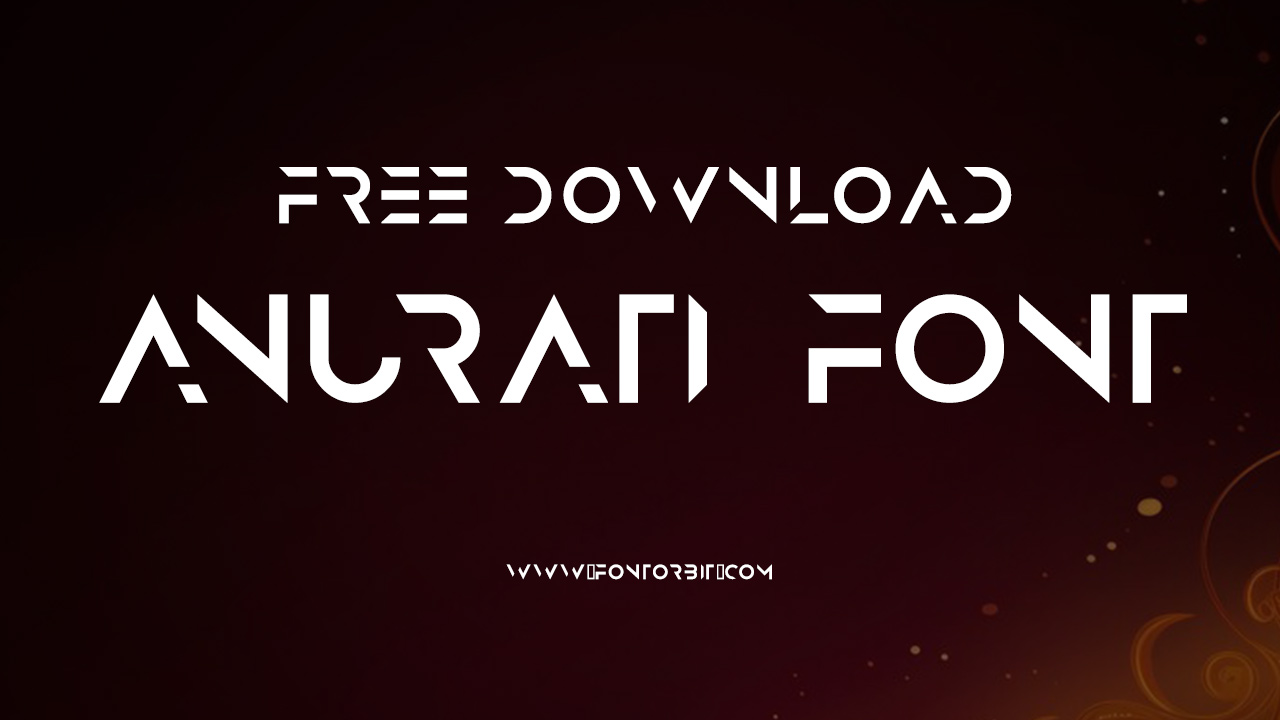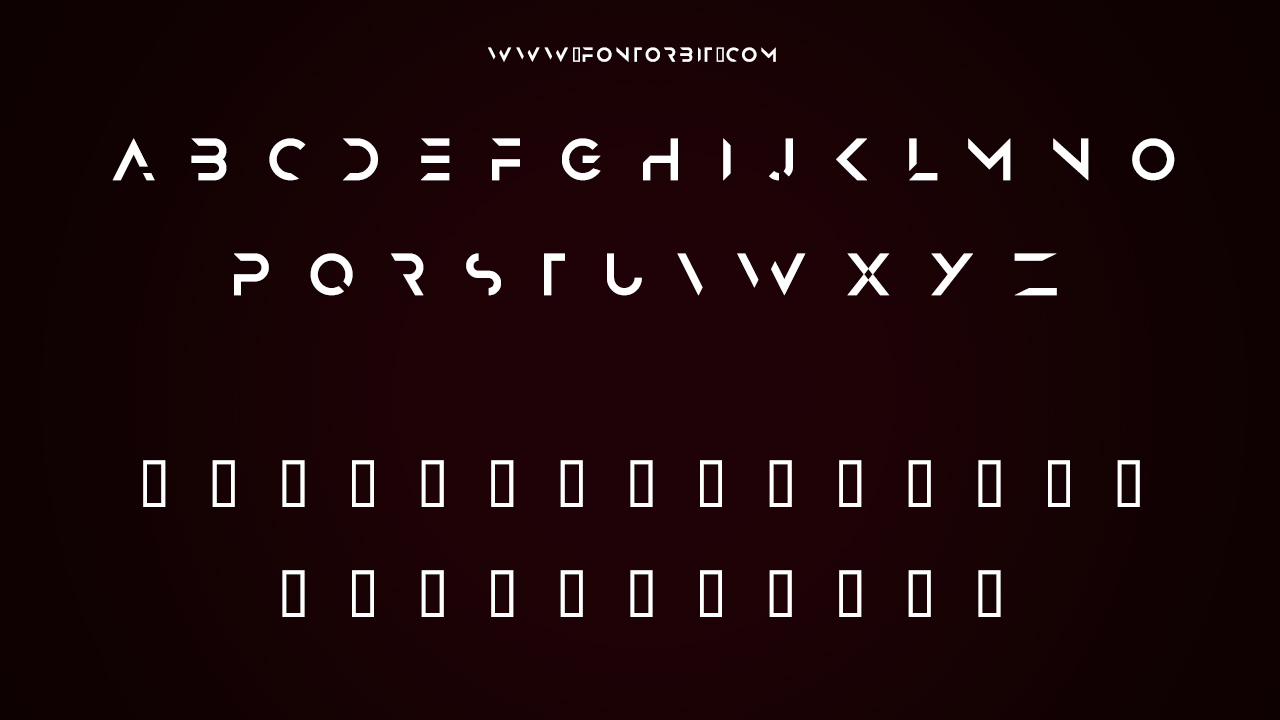
The Anurati Font, designed by Emmeran Richard, is a futuristic and decorative sans-serif typeface that stands out with its unique geometric forms and half-cut letters. Originally released as a free font, Anurati is perfect for game interfaces, posters, movie titles, and web design, offering a modern and distinctive aesthetic.
The Anurati Font Family
Anurati Regular
This typeface is tailored for display purposes, providing a sleek and futuristic look that is ideal for eye-catching applications. Its singular style and geometric design make it well-suited for high-visibility projects and creative text designs.
- Movie Titles
- Game Interfaces
Anurati Font excels in creating futuristic and modern visuals for various design contexts. It is perfect for branding, stylish text overlays, and any project requiring a bold, distinctive look. Its modern, geometric style also enhances digital and print media.
Anurati Font combines a futuristic aesthetic with distinctive geometric features, making it an excellent choice for projects needing a modern and innovative touch. Its versatile use across different design fields ensures it stands out in both digital and print media.
1.What Is The Anurati Font?
Anurati is a futuristic, decorative sans-serif typeface designed by Emmeran Richard, featuring unique geometric forms and half-cut letters.
2.How To Choose The Right Size For Anurati Font?
Anurati is ideal for large-size applications such as movie titles, posters, and headlines, where its distinctive style can be fully appreciated.
3.What Are The Key Features Of The Anurati Font?
Anurati features geometric forms and half-cut letters, giving it a modern and futuristic look that is perfect for high-impact designs.
4.How To Use The Anurati Font In Design?
Use Anurati for creating bold, futuristic visuals in branding, game interfaces, and digital media to achieve a modern and distinctive appearance.
5.What Is The Pro Version Of Anurati Font?
The Pro version of Anurati Font is ANURATI PRO. It includes two styles—Regular and Outline—along with an expanded set of characters, glyphs, and numerals.